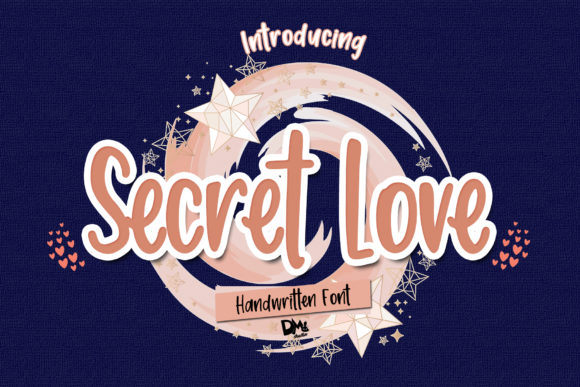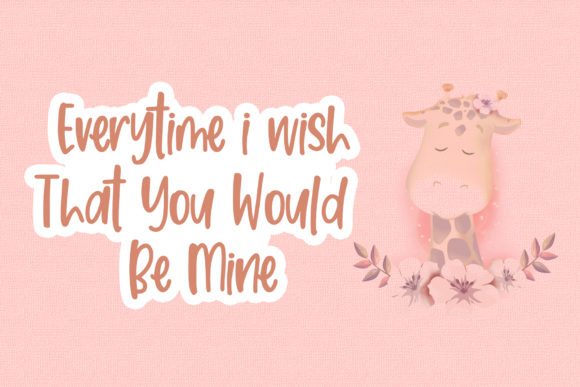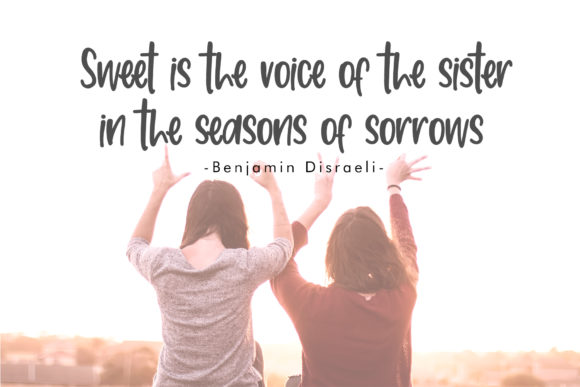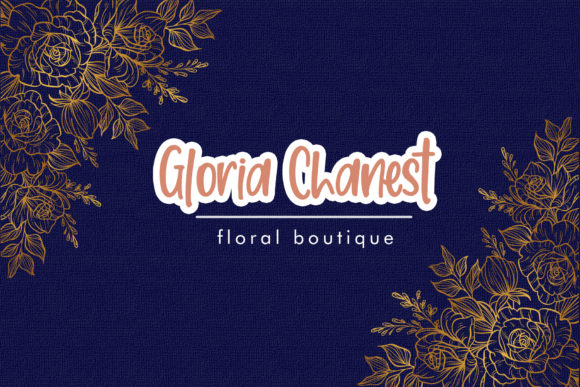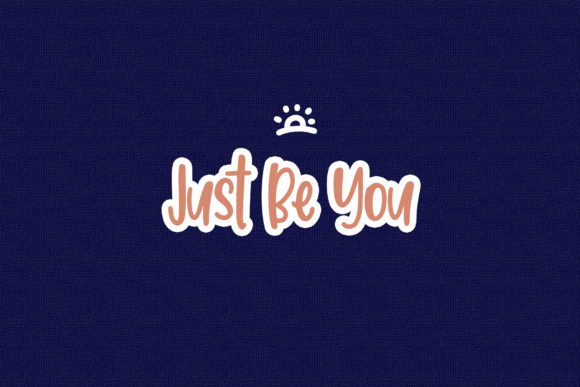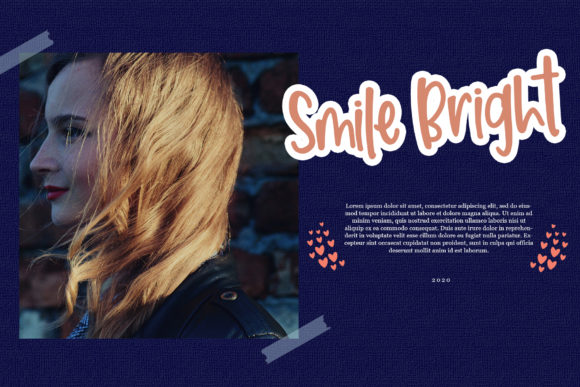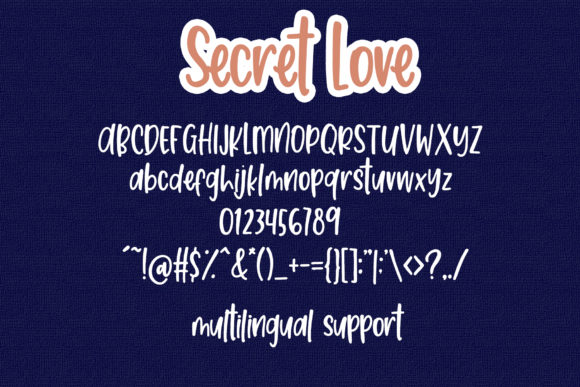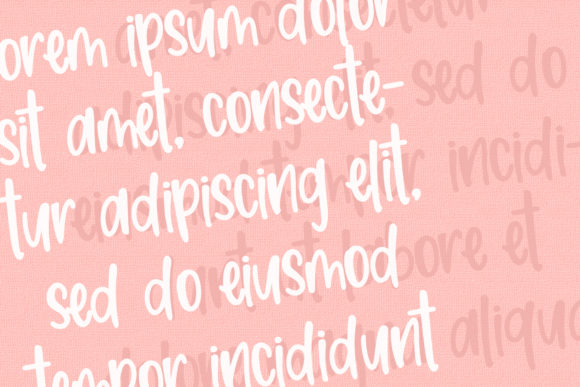
Secret Love Font
About Secret Love Font
Secret Love is a sweet, romantic yet versatile font for a wide range of applications. Fall in love with its romantic charm!